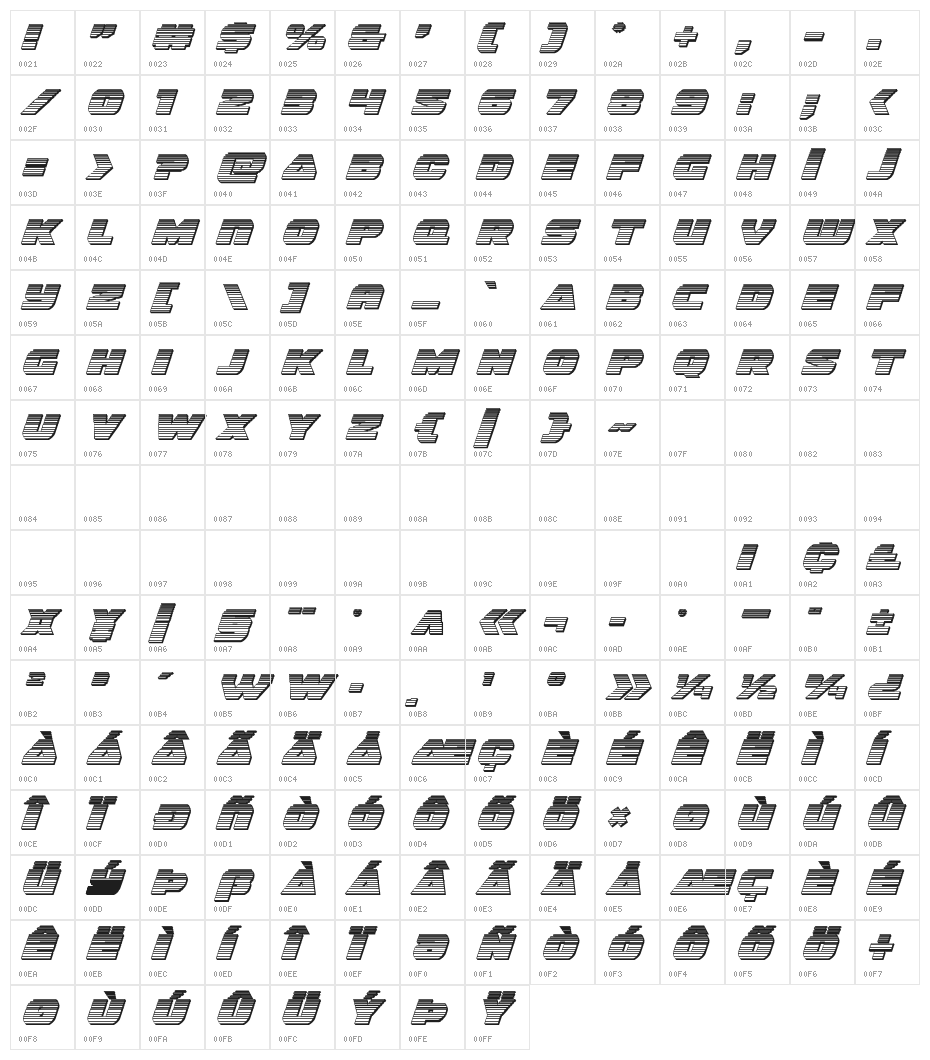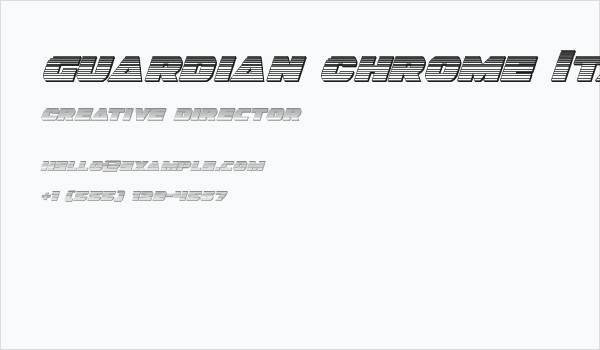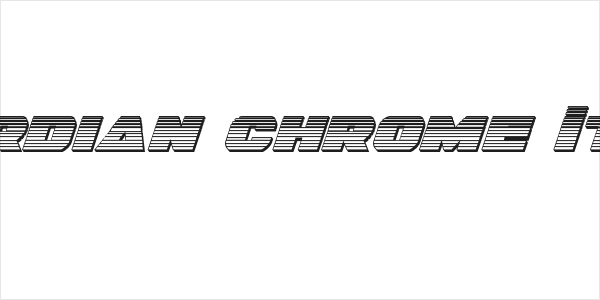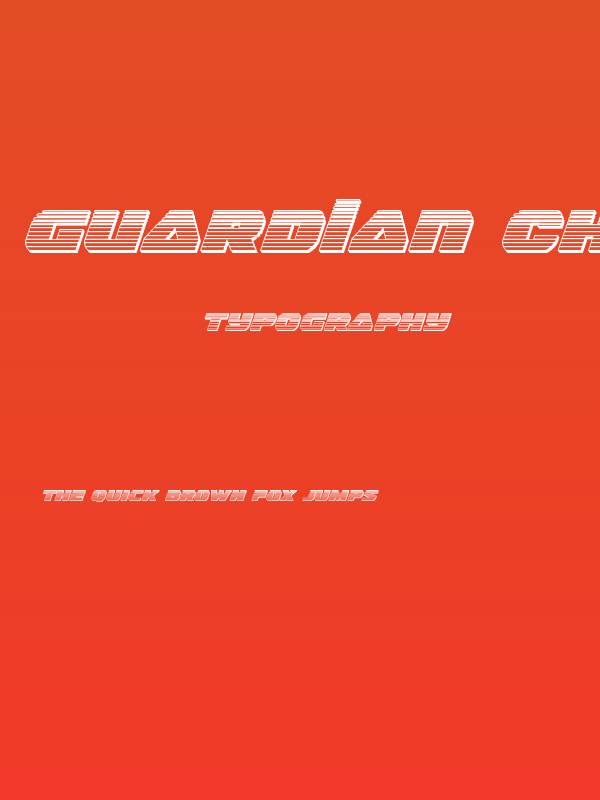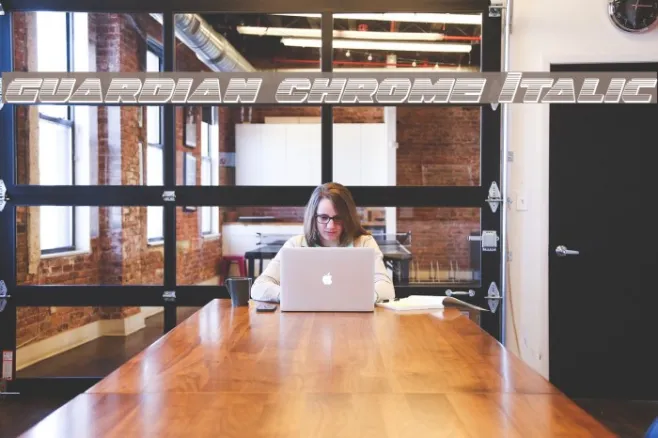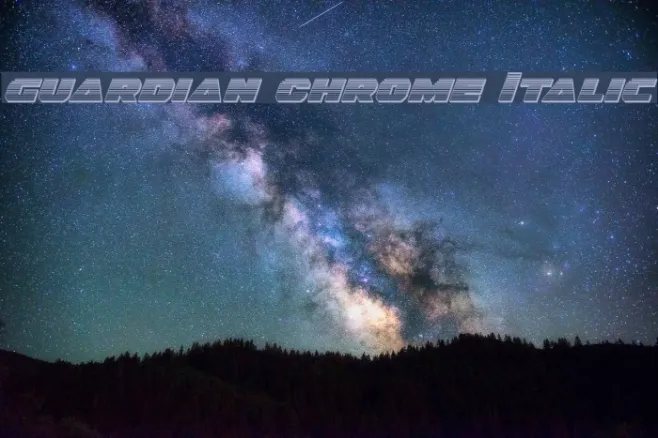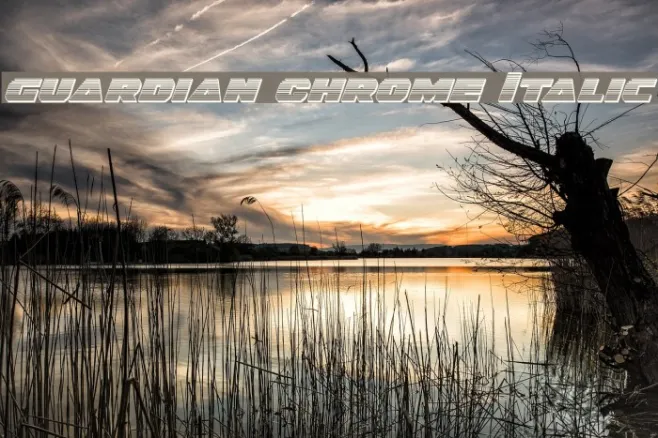
Guardian Chrome Italic Font
Guardian Chrome Italic Description
This font features a bold and dynamic design with a distinct chrome-like appearance. The characters are italicized, adding a sense of motion and energy. Each letter is composed of multiple parallel lines, creating a layered, three-dimensional effect that is both futuristic and industrial. The font maintains a consistent width and weight across all characters, ensuring uniformity and balance. The uppercase and lowercase letters are well-defined, with sharp angles and clean lines. Numbers and special characters are equally stylized, making them suitable for a variety of creative applications.
| Overall Style | Futuristic, Industrial |
| Proposed Projects | Ideal for futuristic branding, tech-related projects, video game titles, and dynamic poster designs. |